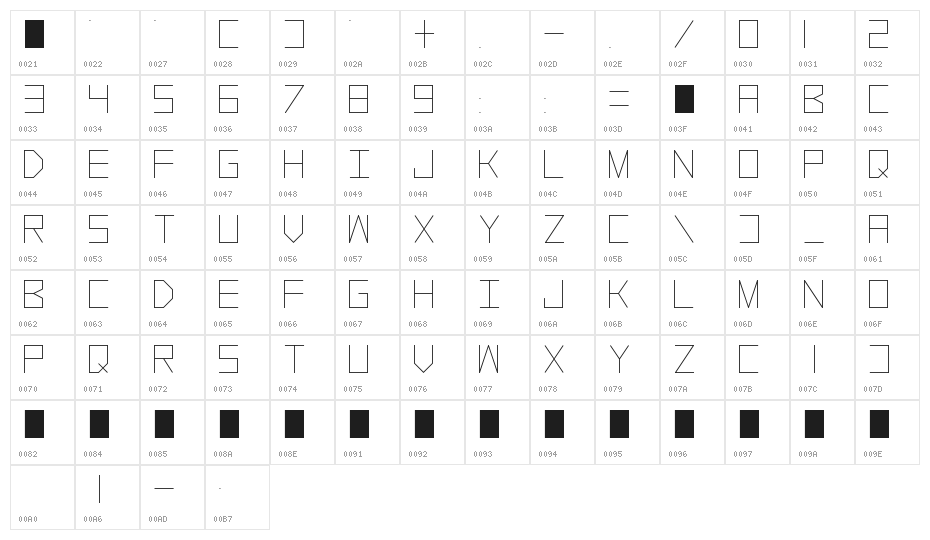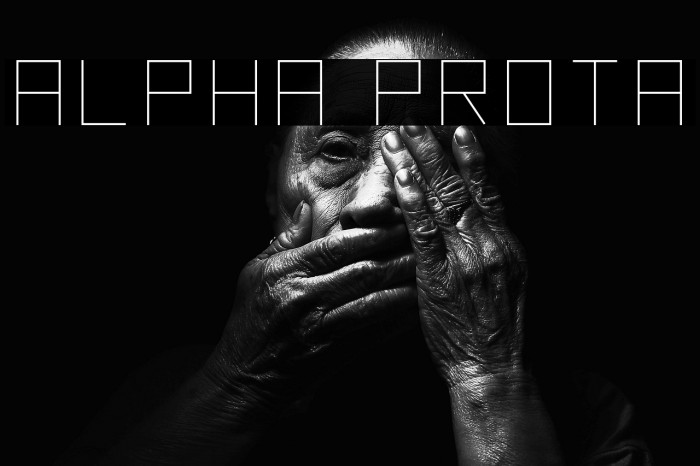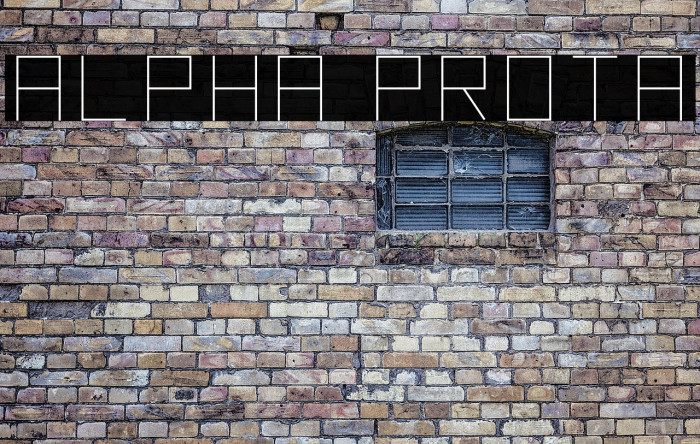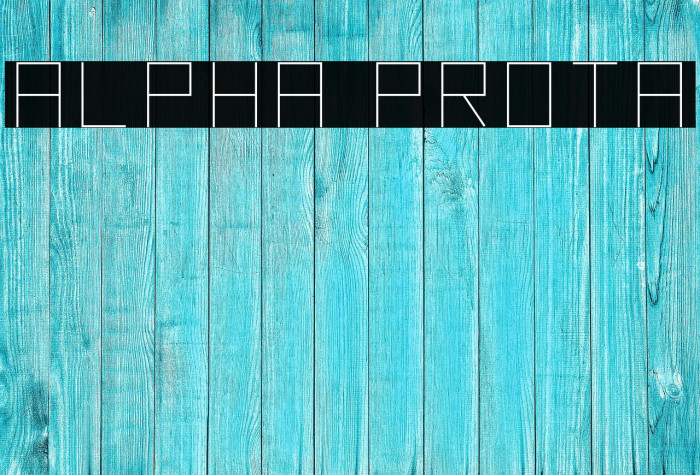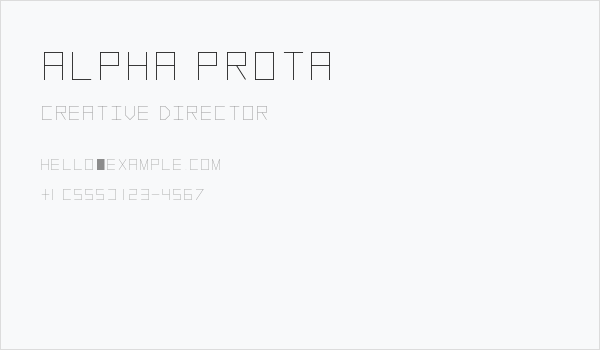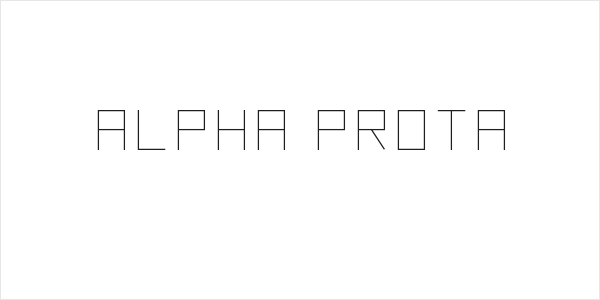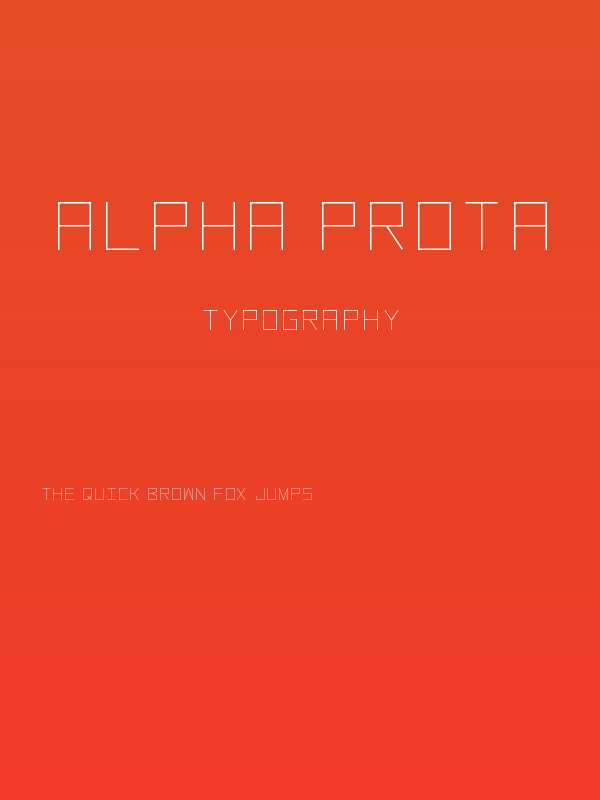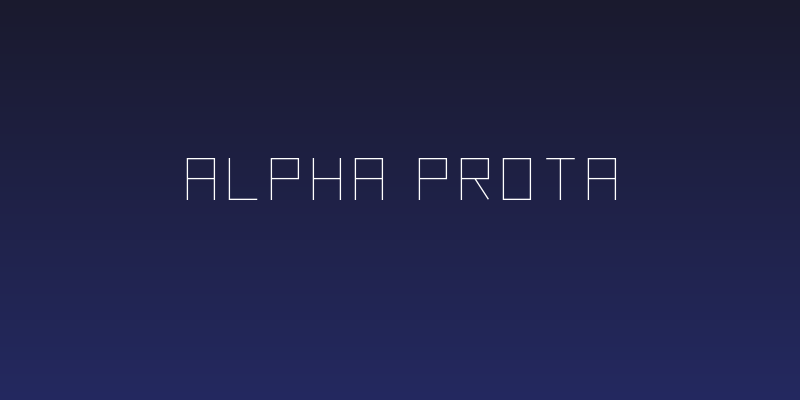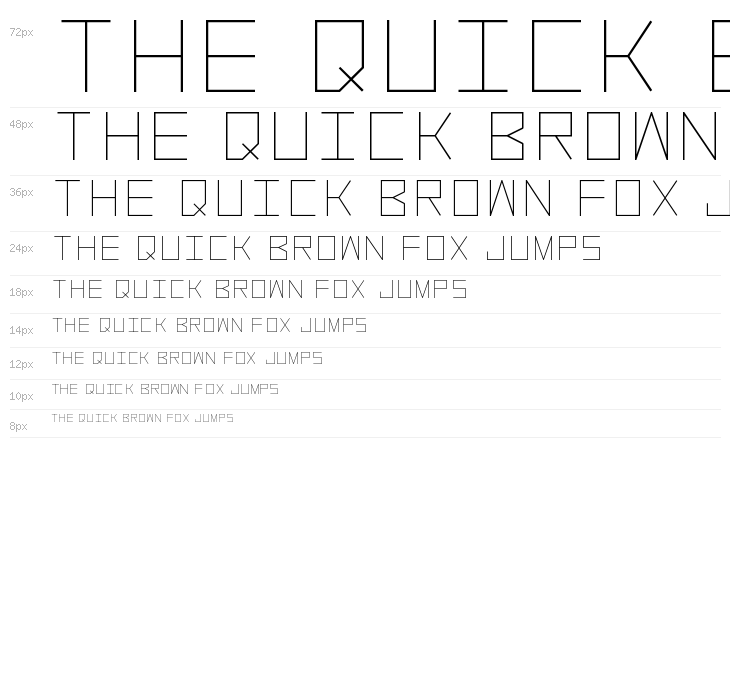
Alpha Prota Font
Alpha Prota Description
This font features a geometric and minimalist design, characterized by its thin, straight lines and angular shapes. The uppercase letters are constructed with a uniform line weight, giving them a clean and modern appearance. The numerals and special characters follow the same design principles, maintaining consistency across the character set. The font's simplicity and clarity make it suitable for digital displays and modern design projects. Its unique style is both futuristic and functional, ideal for conveying a sense of innovation and technology.
| Use Case | Logos, Digital displays, Tech branding |
| Proposed Projects | Ideal for tech branding, digital interfaces, modern art projects, and futuristic design themes. |